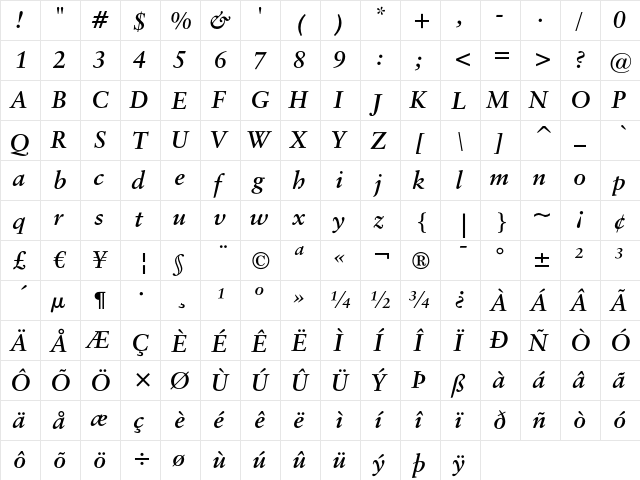
Classical Garamond Bold Italic Font Preview
Design Context for Classical Garamond Typeface
Classical Garamond wears its vintage influences proudly, with letterforms that recall mid-century signage, classic packaging, and nostalgia-driven design. The dynamic lean of this cut emphasises speed and emphasis in any layout. Its bold stroke weight gives it real presence on the page.
Perfect for vintage-inspired branding, retro packaging, nostalgia campaigns, and period-accurate editorial design.
Font Pairing: Combine Classical Garamond with a simple slab or neutral sans — period-accurate companions reinforce the vintage feel without competing for attention.
Pro Tip: Use Classical Garamond for headlines and pull quotes rather than body copy — its personality is best appreciated in short, focused bursts.